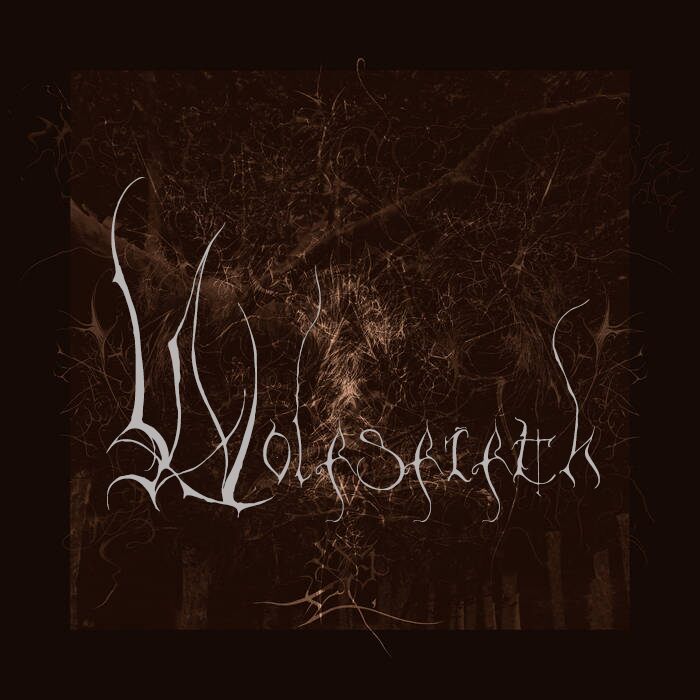
Wolfsfifth
Wolfsfifth font is a modern, scary, gothic font designed by Weaverbird. Its light build carries intricate details and ornamental touches which give a dark aesthetic and create a mysterious atmosphere. The typeface is filled with Gothic influences that are reminiscent of past styles.
This free gothic font can be used in metal music album covers, fantasy-themed artwork, book covers, comic book designs, branding projects for themed events or nightclubs logos. Games can be especially appropriate as the typography piece literally brings fantasy to life – so titles, UI text or more headings can be typed in it too. Movies and TV series promotional materials would also find this freebie useful.